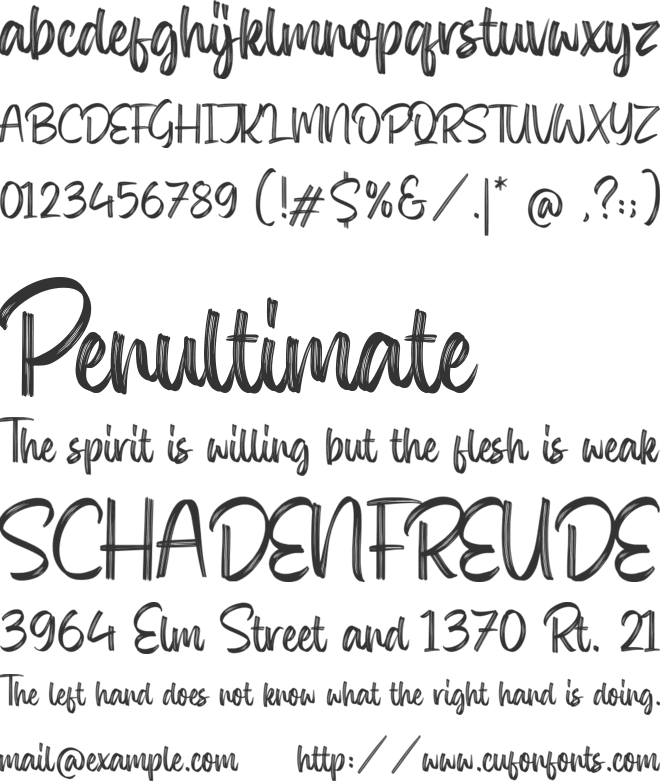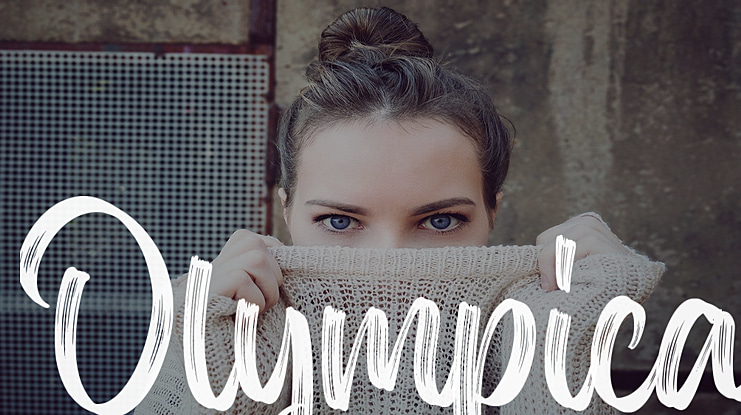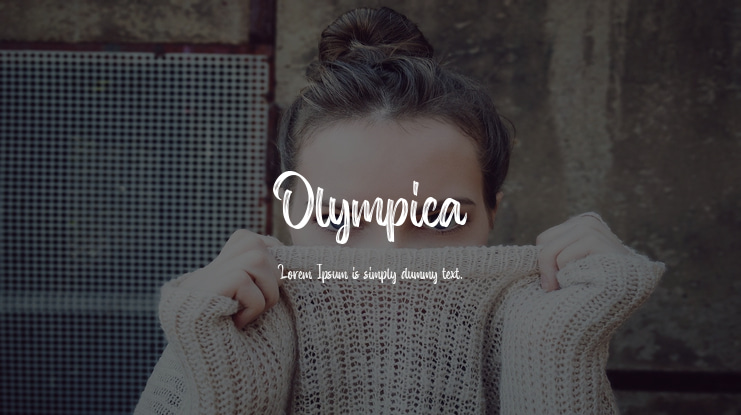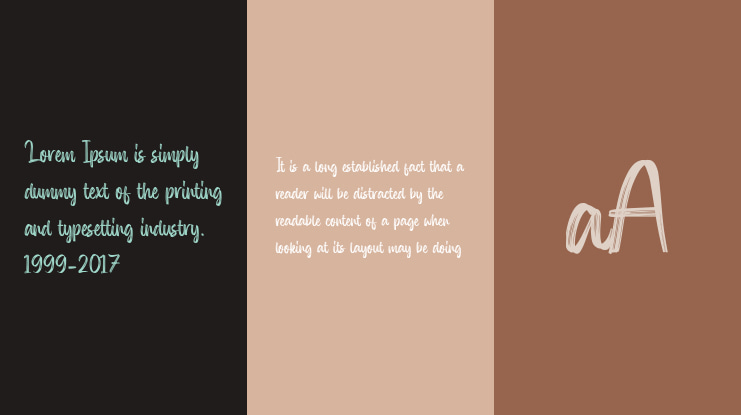
Olympica Font
Introducing by Balpirick Studio.
Proudly Present, Olympica Font.
Olympica is a Modern Brush Font.
Olympica is a cursive and beautiful brushed script font. It is defined by smooth curves and is perfect for fashion branding or editorial designs. Add it confidently to your projects, and you will love the results.